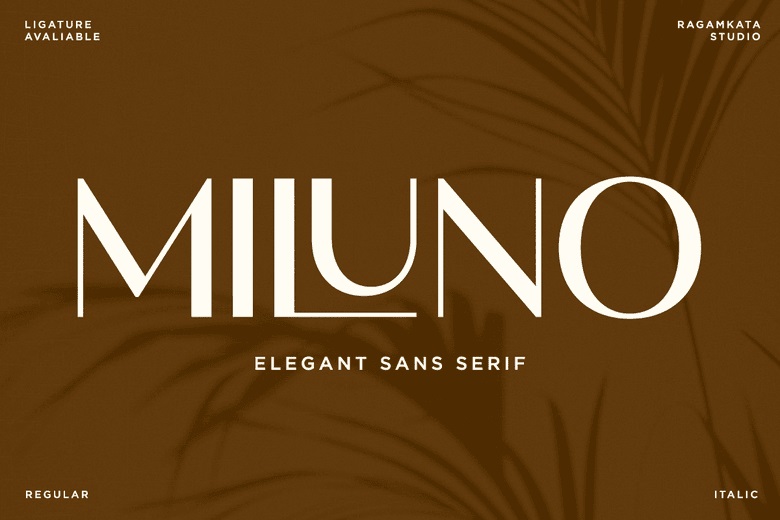
Miluno Font
Miluno is an elegant modern sans serif typeface crafted to introduce clarity, sophistication and refined simplicity into modern visual communication. Miluno is designed with great clean geometry, balanced proportions, and curves, which provide a smooth and polished look, which is modern and timeless. Its light grace enables every letterform to be breathing, establishing a natural rhythm that augments the ability to read and yet has a high sense of visual power.
Miluno was developed to address the typographic requirements of branding designers, creative studios, content creators, and marketing teams, with a great deal of versatility. The typeface is suitable in logos, branding systems, editorial layouts, web design, packaging, advertising and social media information, where it can fit perfectly in both digital and print applications, which guarantees the provision of similar visual performance in each project.
Whether it is luxury branding, corporate identification, fashion, lifestyle editors, or minimalist design projects, Miluno will improve the visual storyline with its sophisticated nature and contemporary beauty. This font is intended to promote professional creativity, and it provides the confident, clean, and high-quality appearance, which reinforces brand presence and improves the quality of the overall design.
Miluno Sans Serif Font